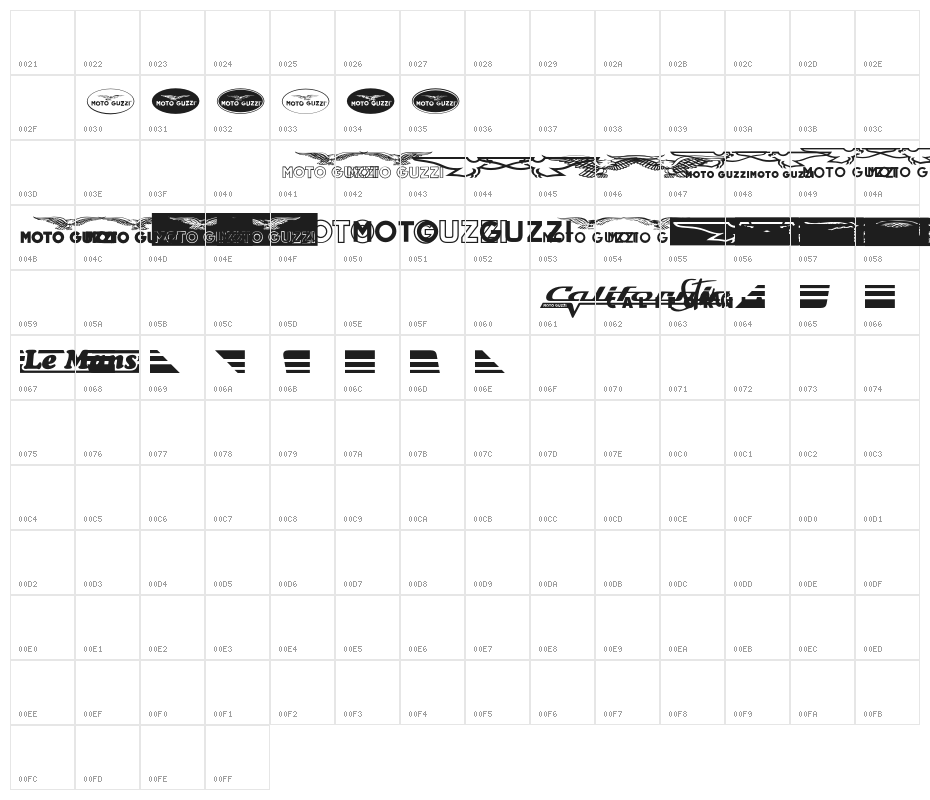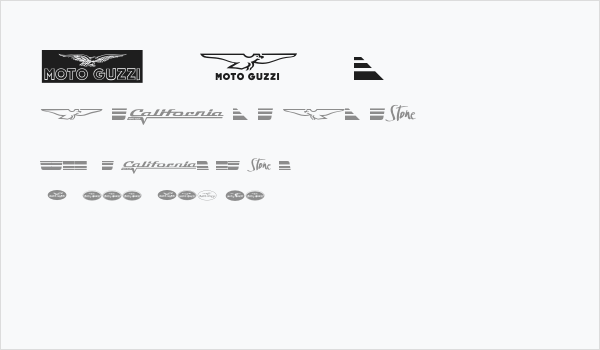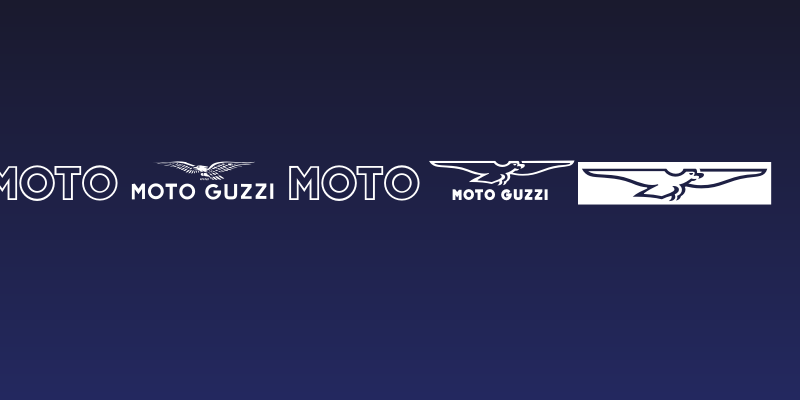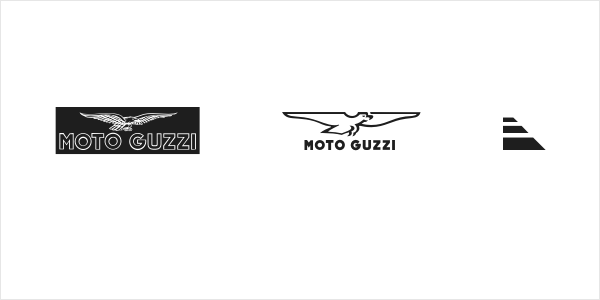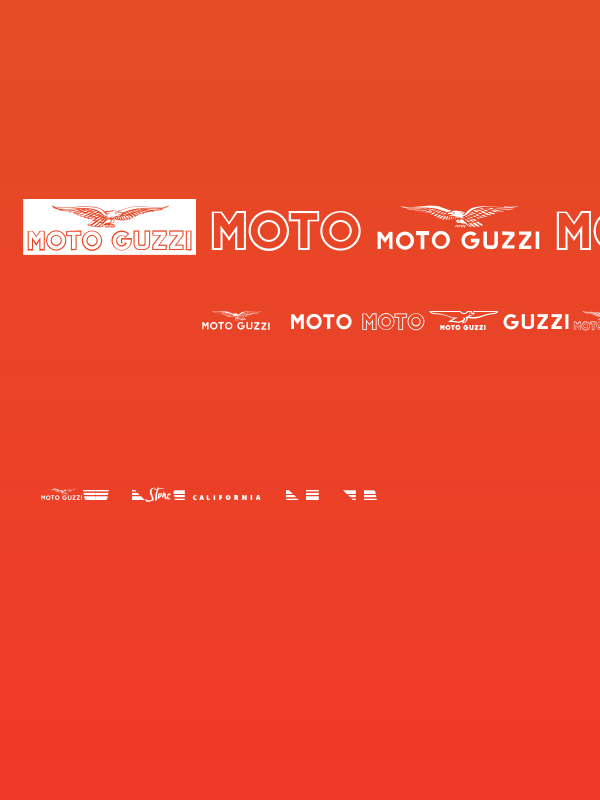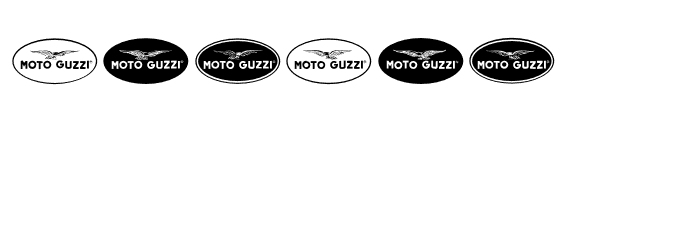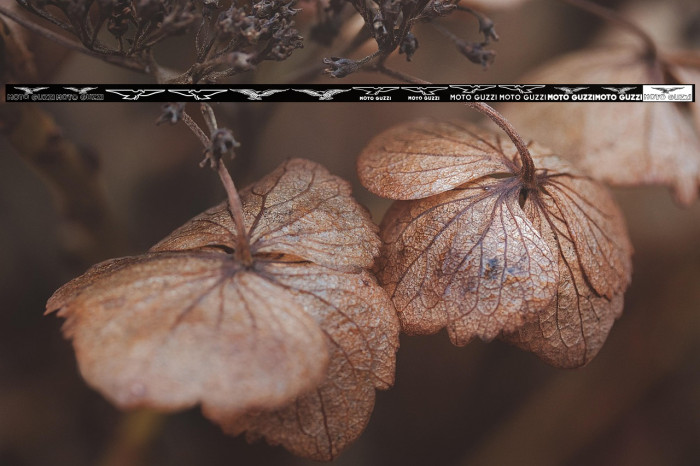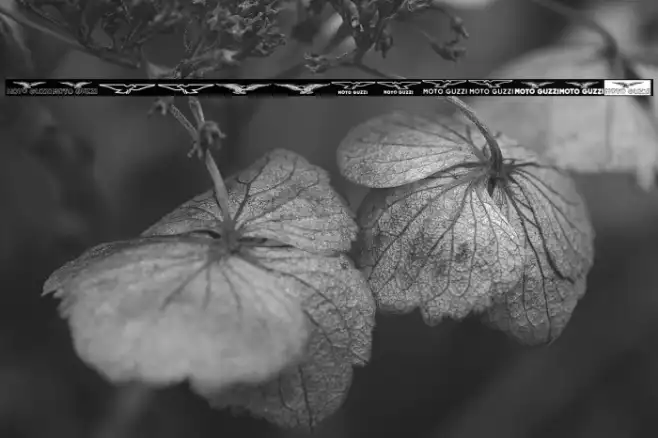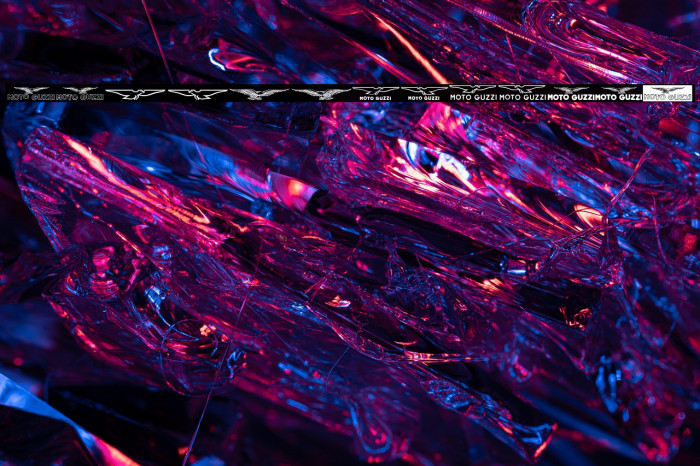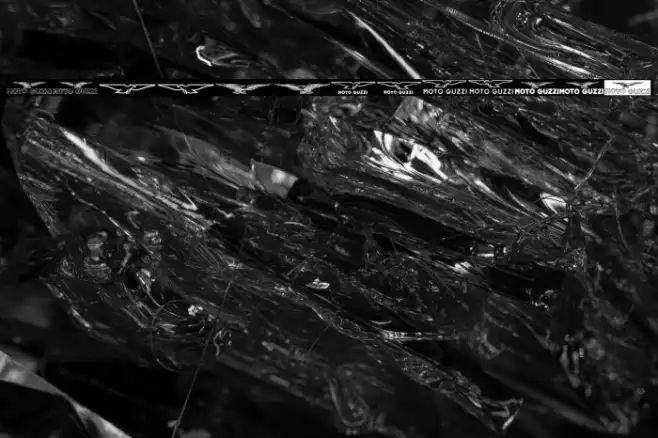
MotoGuzzi Font
This font features a bold and dynamic style, characterized by its strong, clean lines and modern aesthetic. The uppercase letters are prominent and well-defined, making them highly legible. The font conveys a sense of speed and power, suitable for branding that emphasizes strength and reliability. The design includes unique elements that add a distinctive flair, making it stand out in various applications.
| Use Case | Logos, Headlines |
| Proposed Projects | Ideal for automotive branding, sports team logos, and dynamic advertising campaigns. |